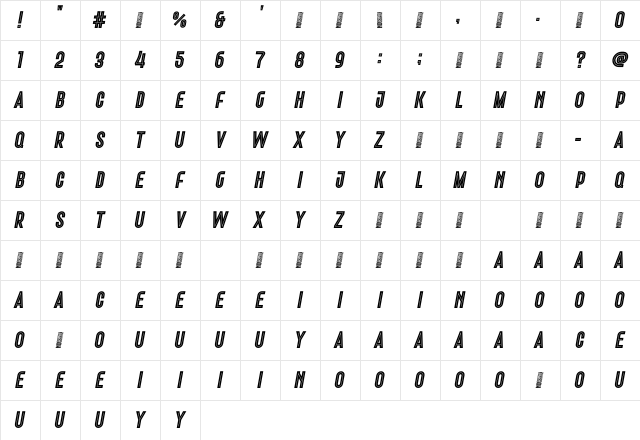
Complete Freiburg In Line PERSONAL USE glyph index. Displaying only characters natively supported by Freiburg In Line PERSONAL USE font.
Freiburg is a composed and adaptable typeface that performs quietly and consistently across a wide range of design contexts.